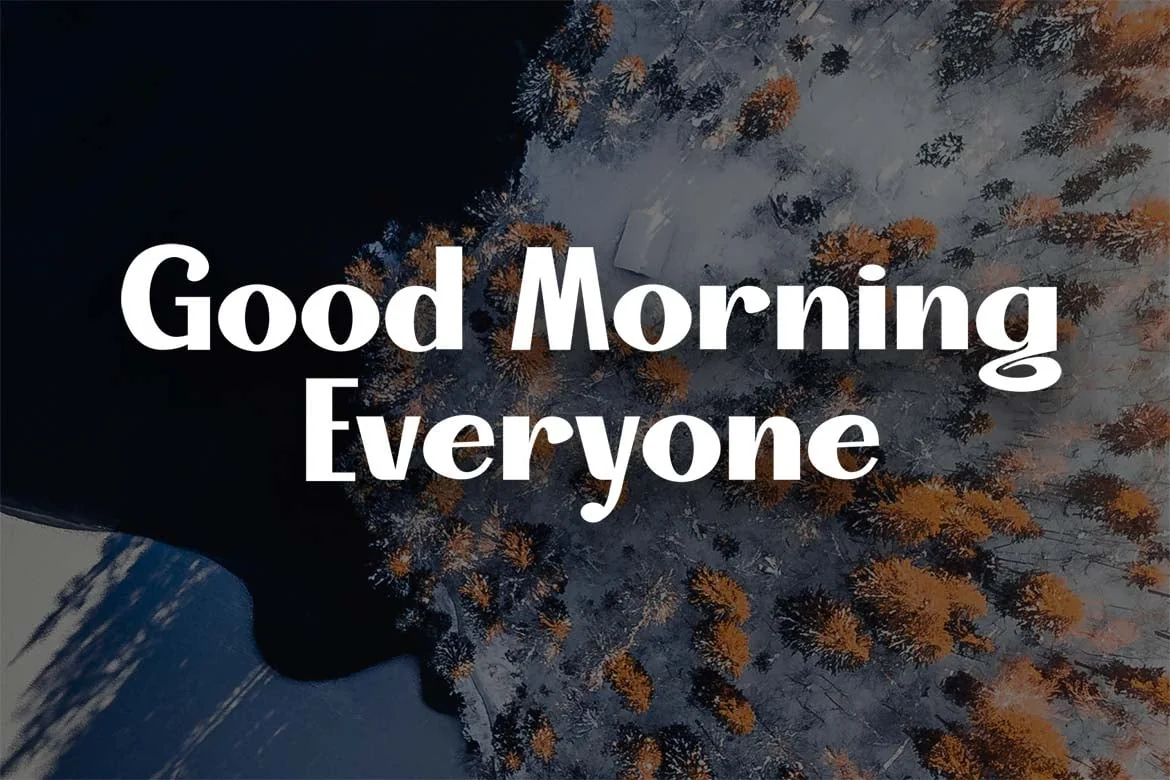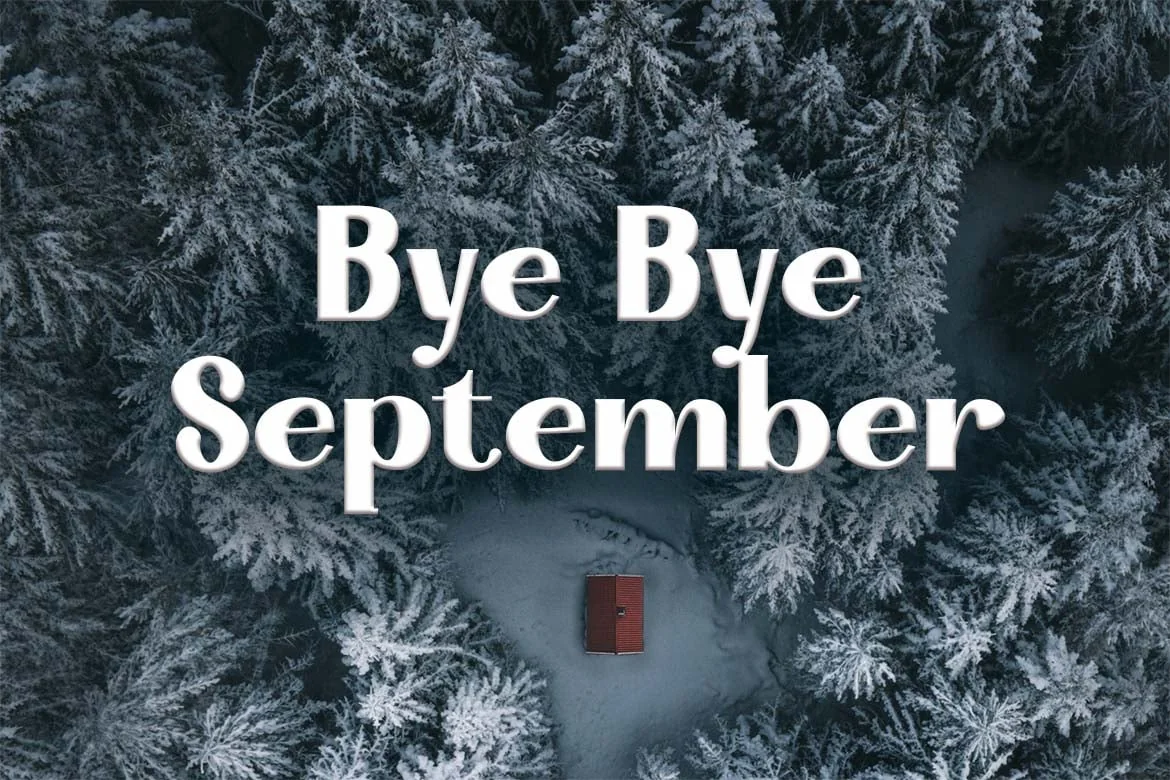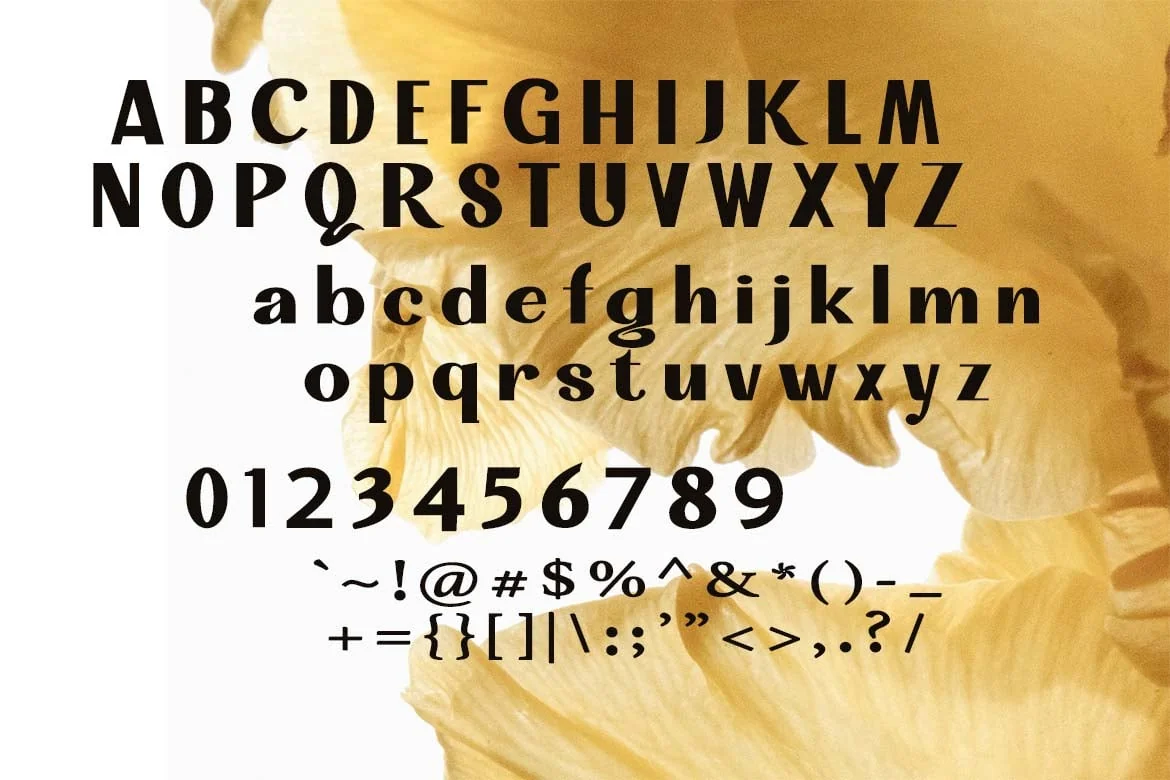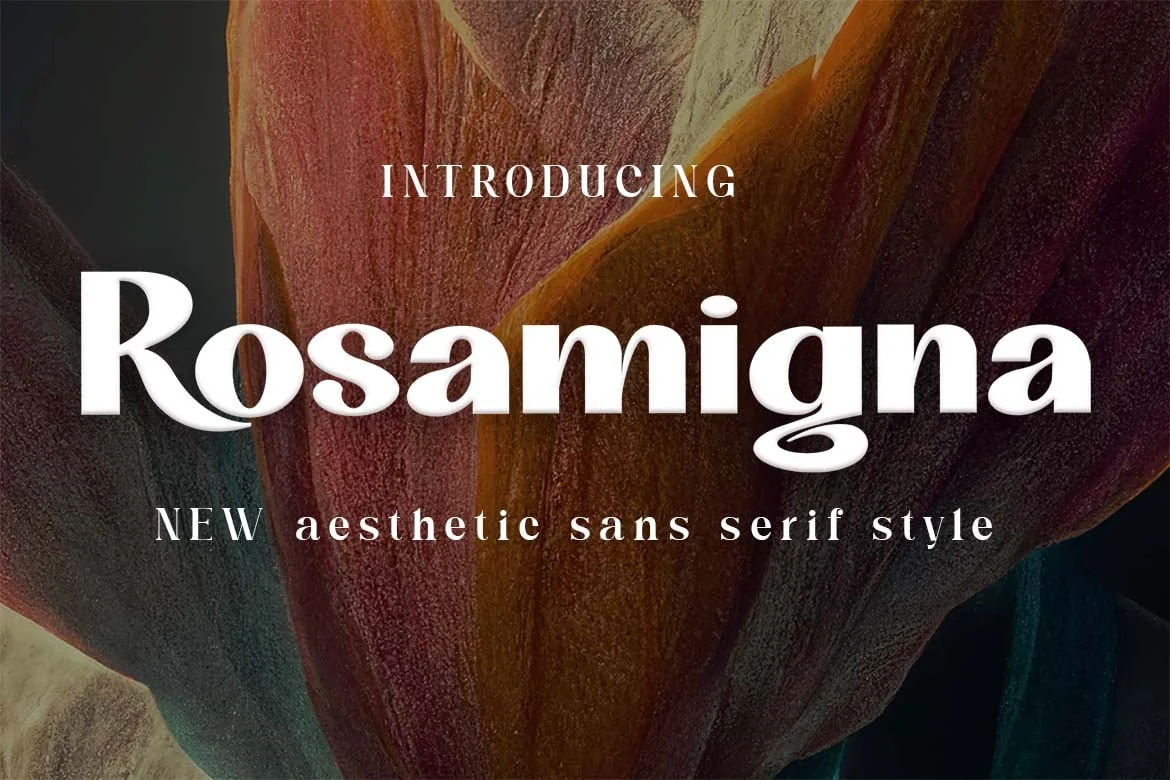
Rosamigna – Sans Serif Font
Introducing Rosamigna, a beauty, simple, and casual sans serif font. So perfect for you who needs a typeface for logo designs, magazine, social media, brochure, and many more.
- Numerals